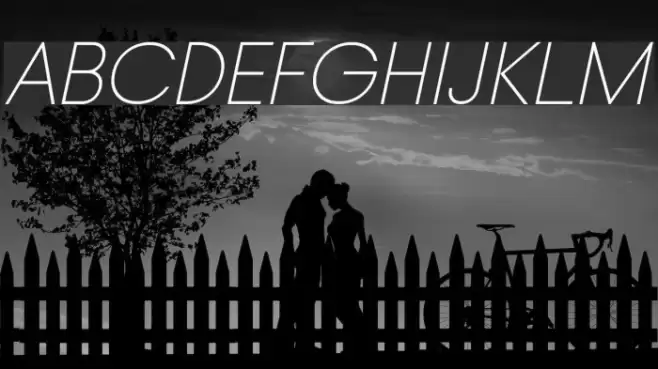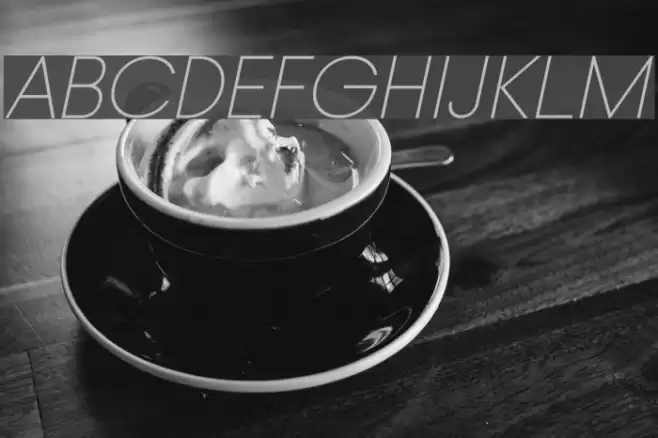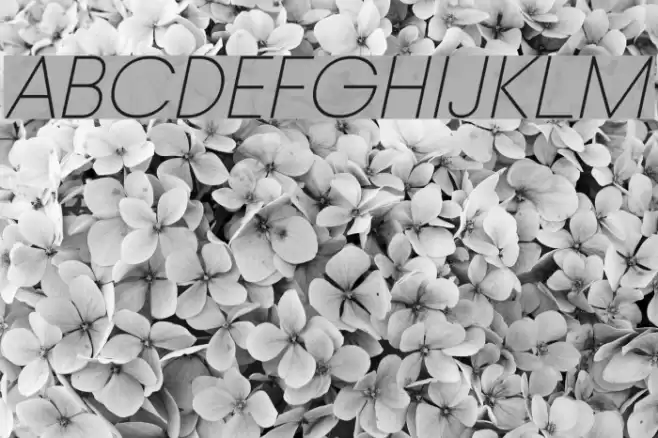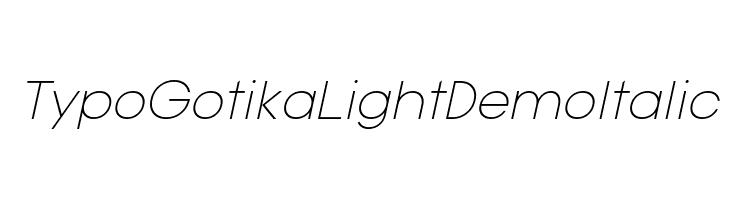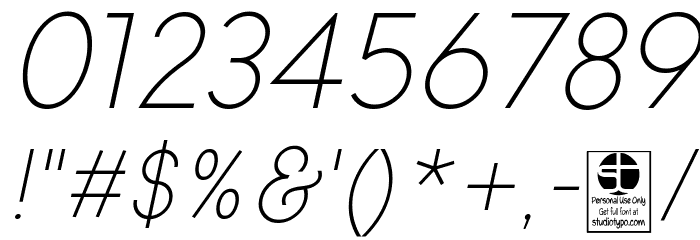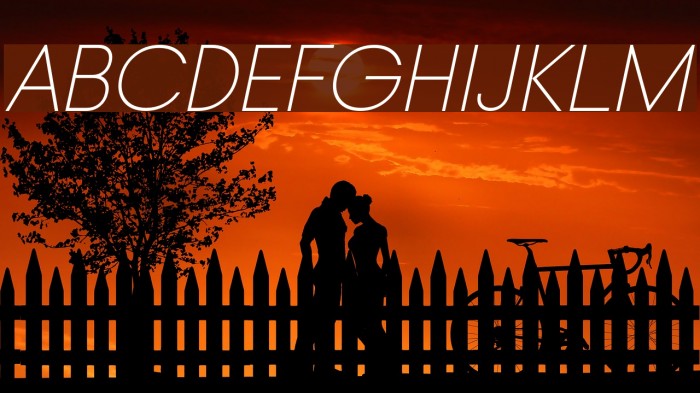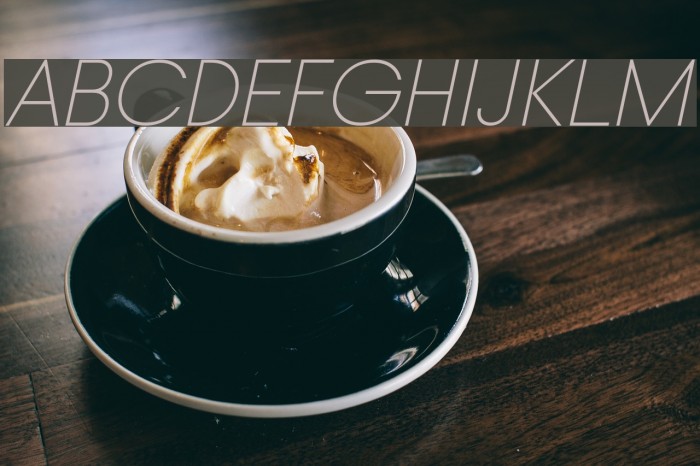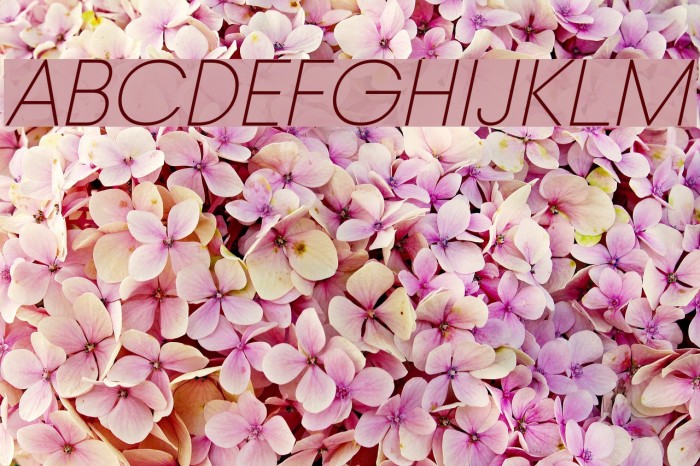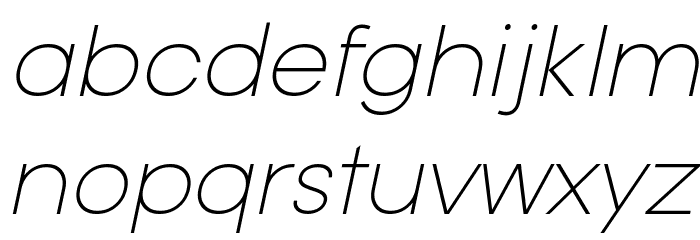
Typo Gotika Light Demo Italic Font
Typo Gotika Light Demo Italic Description
This font presents a sleek and modern aesthetic with its light and elegant strokes. The characters are designed with a subtle italic slant, adding a touch of sophistication. The uppercase and lowercase letters maintain a consistent style, with smooth curves and clean lines. The numerals are equally refined, matching the overall delicate appearance. Special characters are included, each crafted with the same attention to detail. The font's thin weight and italic style make it ideal for projects that require a contemporary and stylish look.
A light, italic font with a modern and elegant style from Uncategorized fonts.